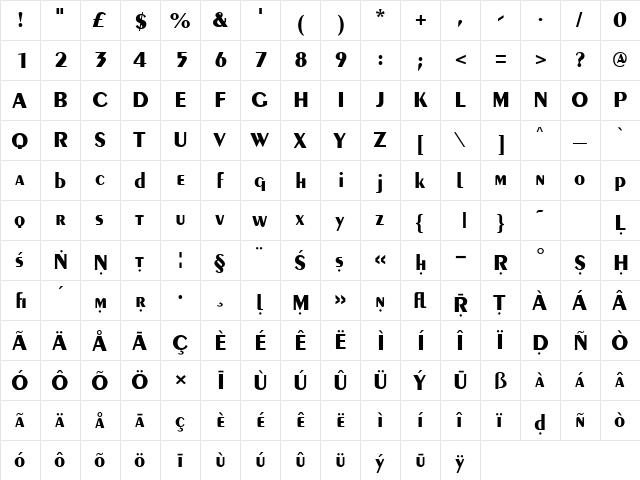
Skt Monterez Bold
| Designer | Diacritical marks added by Bhikkhu Pesala. |
Design Context for Skt Monterez Typeface
Skt Monterez takes a measured approach to typography — its balanced proportions and neutral character make it a reliable workhorse for both digital and print work. Its bold stroke weight gives it real presence on the page.